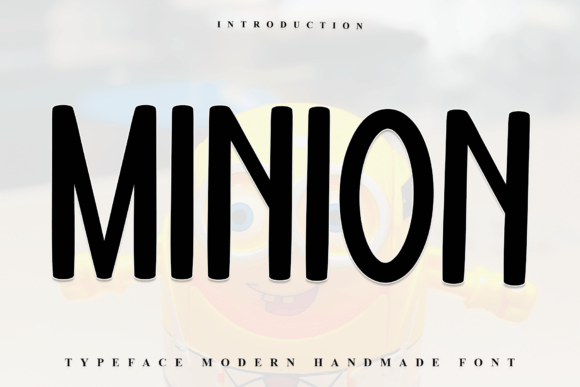
Minion Font Download Premium Font : Looking to bring a sense of warmth, freshness, and casual sophistication to your designs? Meet Minion Font — a charming sans‑serif typeface that strikes the perfect balance between clean simplicity and organic personality.
Minion Font isn’t just another sans‑serif. Its soft curves and gentle lines set it apart, creating text that feels both stylish and friendly. In this guide, we’ll explore why Minion Font has become a favorite among designers, its best uses, creative ideas, where to download it, free alternatives, and answers to common questions.
What is Minion Font?
Minion Font is a beautifully balanced sans‑serif typeface with fluid strokes and organic curves. Unlike traditional rigid sans‑serifs, Minion adds subtle hand-crafted details that create a natural, approachable feel.
✨ Key features:
Soft, rounded terminals for a friendly vibe
Clean, legible letterforms perfect for modern design
Balanced proportions that feel professional yet inviting
Great for digital and print projects alike
It’s these details that give Minion Font its fresh, casual elegance.
Why Designers Love Minion Font
🌿 Casual Yet Refined:
Feels relaxed but polished — perfect for modern brands.
🎨 Versatile:
Works equally well in minimalist designs and more decorative layouts.
💡 Friendly Personality:
Adds warmth and humanity to digital and printed text.
📱 Social Media Friendly:
Clean enough for mobile screens while keeping character.
🖋 Effortless Style:
Instantly elevates simple designs with organic beauty.
Best Uses for Minion Font
Minion Font’s versatility means it can enhance many design projects, such as:
✅ Branding & Logos:
Perfect for small businesses, creative studios, and boutique brands wanting an approachable yet stylish look.
✅ Invitations & Stationery:
Adds a fresh, modern feel to wedding invites, thank‑you cards, and announcements.
✅ Social Media Graphics:
From quotes on Instagram to banners on Pinterest, its casual elegance is instantly eye‑catching.
✅ Web & App Design:
Clean letterforms keep text readable on screens of any size.
✅ Product Packaging:
Beauty, organic food, or handmade product labels look more personal.
✅ Editorial & Blogs:
Headlines and pull quotes feel sophisticated without being overly formal.
Its gentle style fits creative, lifestyle, fashion, and artisan brands beautifully.
Design Tips for Using Minion Font
💡 Pair with Contrast Fonts:
Use Minion Font for headings and pair it with a serif (like Lora) for body text.
🎨 Use Soft Colors:
Earthy neutrals, pastel tones, or muted gradients emphasize its organic style.
📏 Adjust Letter Spacing:
Tighten tracking for large headlines; loosen it slightly for airy titles.
🖼 Keep Layout Simple:
Minion’s natural curves look best in clean, minimalist compositions.
✨ Mix Cases Creatively:
All‑caps can feel modern and structured; lowercase looks friendly and casual.
Creative Design Ideas with Minion Font
📸 Instagram Quote Post:
A positive phrase in Minion Font over a soft gradient.
💌 Wedding Invitation:
Couple’s names in Minion Font paired with elegant serif details.
🛍 Brand Logo:
Handmade product brand name in Minion Font for a stylish, approachable feel.
📃 Business Card:
Logo in Minion Font with contact info in a clean sans‑serif.
🛒 Product Label:
Organic skincare label with product name in Minion Font.
📖 Blog Post Header:
Minimal headline in Minion Font over large white space.
Why Minion Font Stands Out
Minion Font isn’t just about style — it adds personality. Its gentle curves soften modern minimalism, helping text feel more human and approachable.
Absolutely! Its organic curves catch attention on Instagram, Pinterest, and Facebook.
Final Thoughts: Bring Warmth & Style with Minion Font
Minion Font offers a modern, charming sans‑serif style that feels friendly, fresh, and versatile. From logos and social media posts to invitations and packaging, it adds human warmth and quiet elegance to every design.